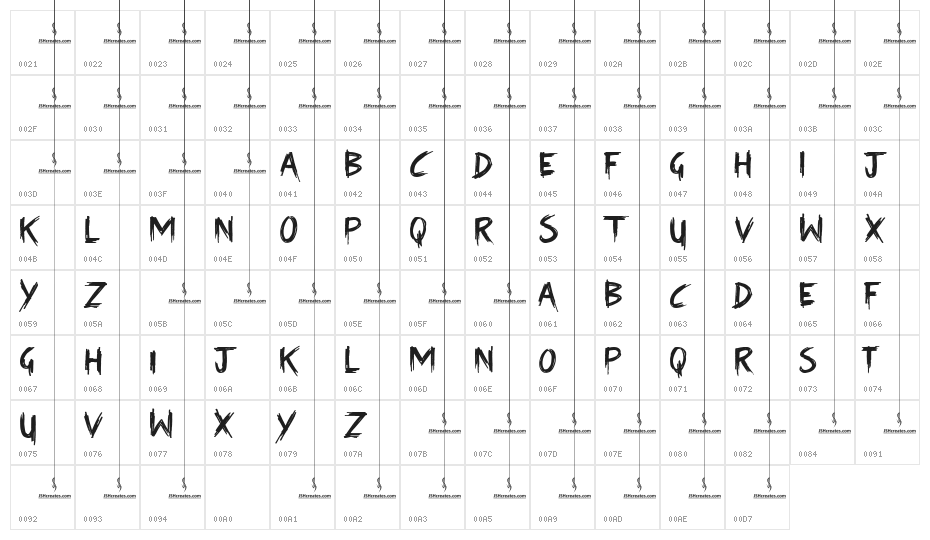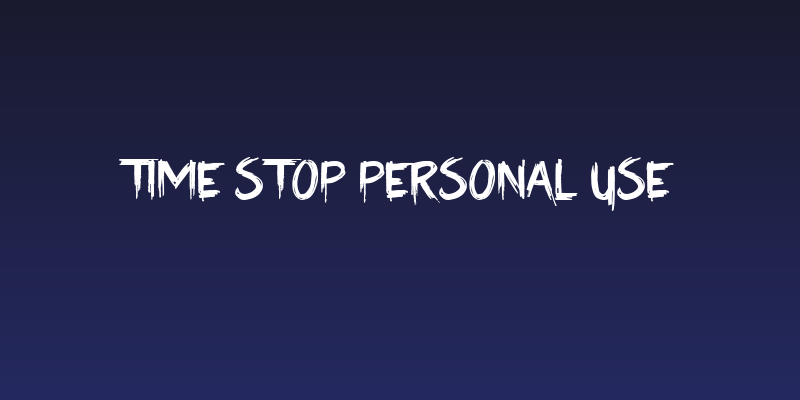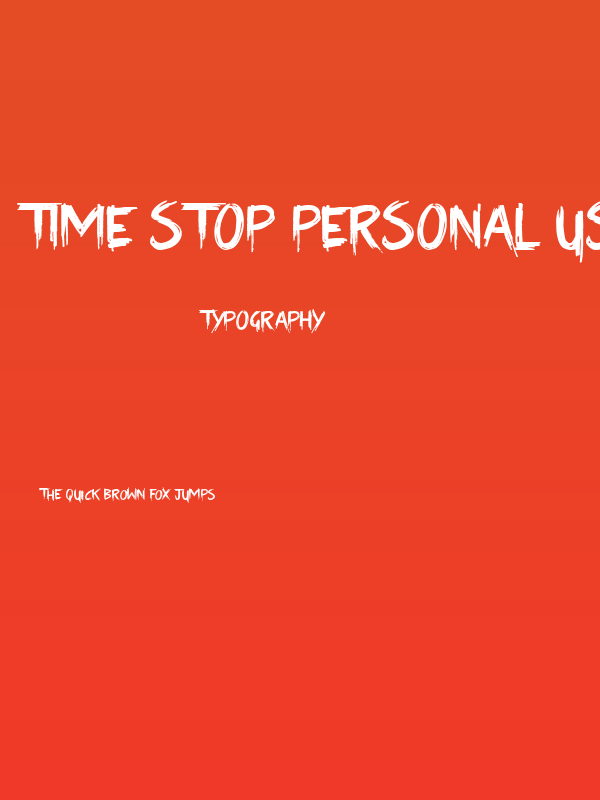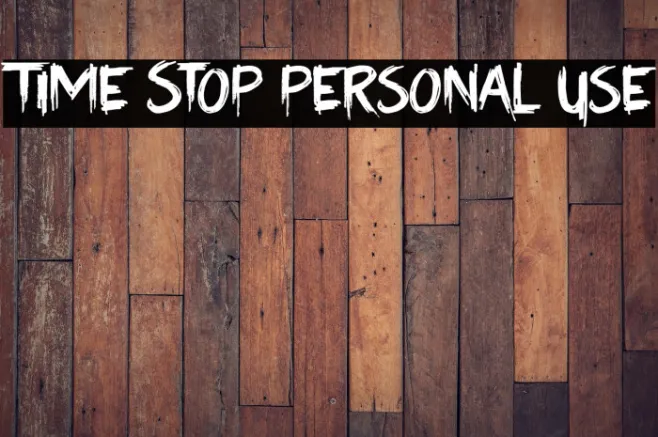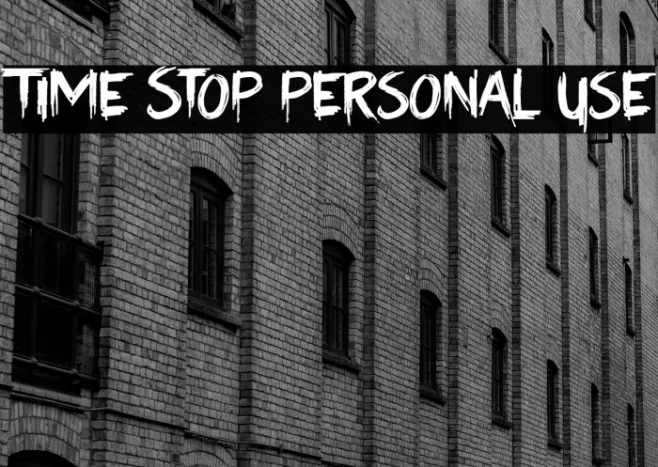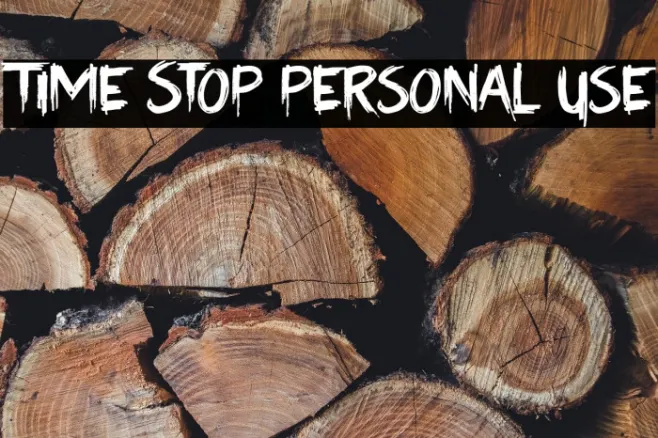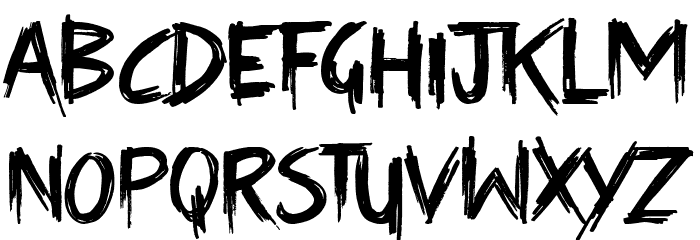
Time Stop Personal Use Font
Time Stop Personal Use Description
This font features a bold and expressive style with a hand-drawn, brush-like appearance. The strokes are irregular and dynamic, giving each character a sense of movement and energy. The uppercase letters are particularly striking, with sharp angles and varying line thicknesses that create a sense of urgency and intensity. The lowercase letters maintain this energetic style, with a slightly more compact form. The numbers and special characters are consistent with the overall aesthetic, adding to the font's cohesive and impactful look. This font is ideal for projects that require a strong visual statement.
| Overall Style | Modern, Energetic |
| Proposed Projects | Ideal for posters, album covers, graffiti art, and any project needing a bold, energetic style. |